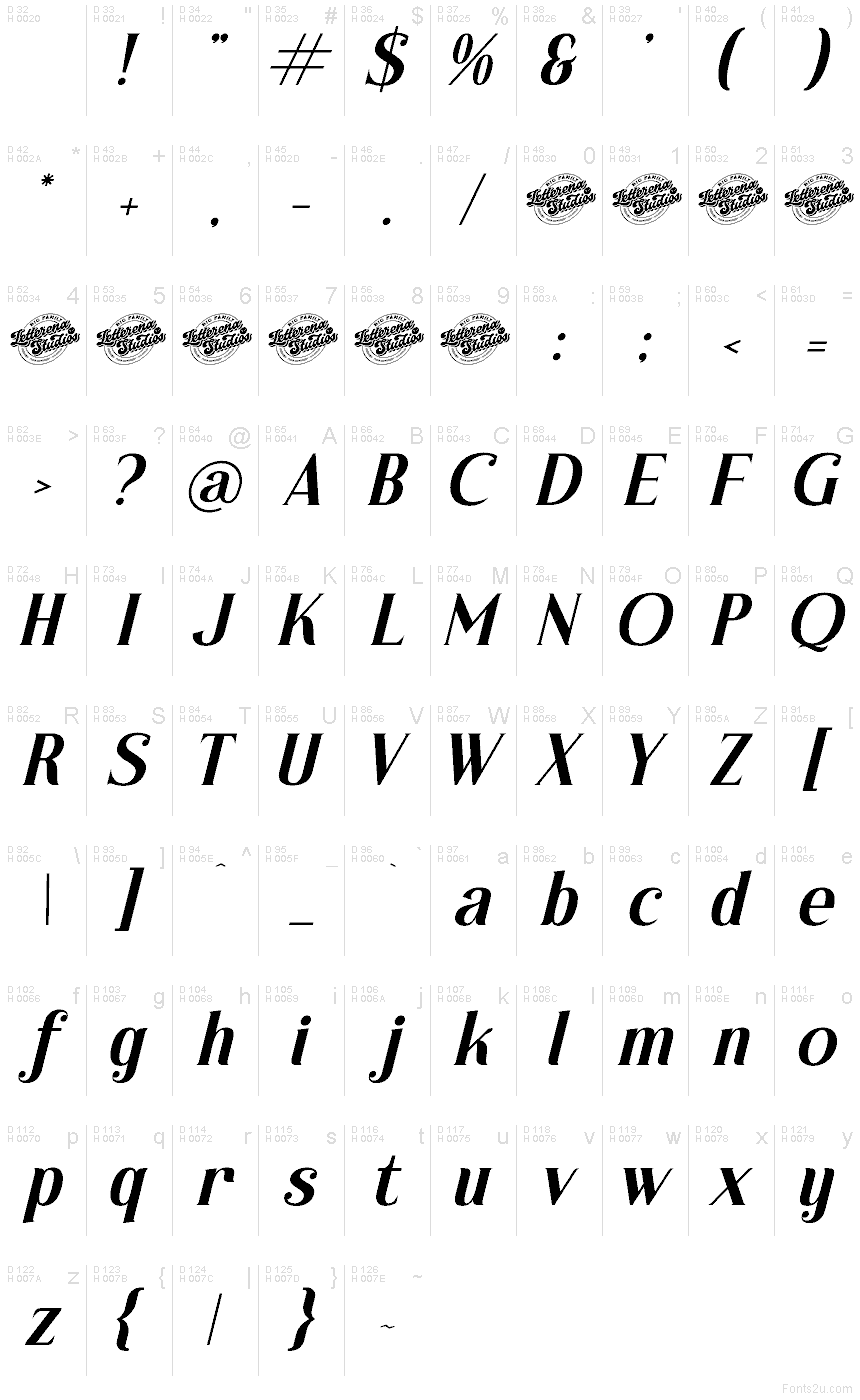
Gikefta DEMO VERSION Italic
Gikefta Italic font from Letterena Studios is a luxurious and elegant stylistic font that will bring sophistication to your design projects. The classic serif designed lettered font features subtle curves, smooth transitions, and refined aesthetics. Get impressive headings and text body paragraphs with engaging content using this stunning font.